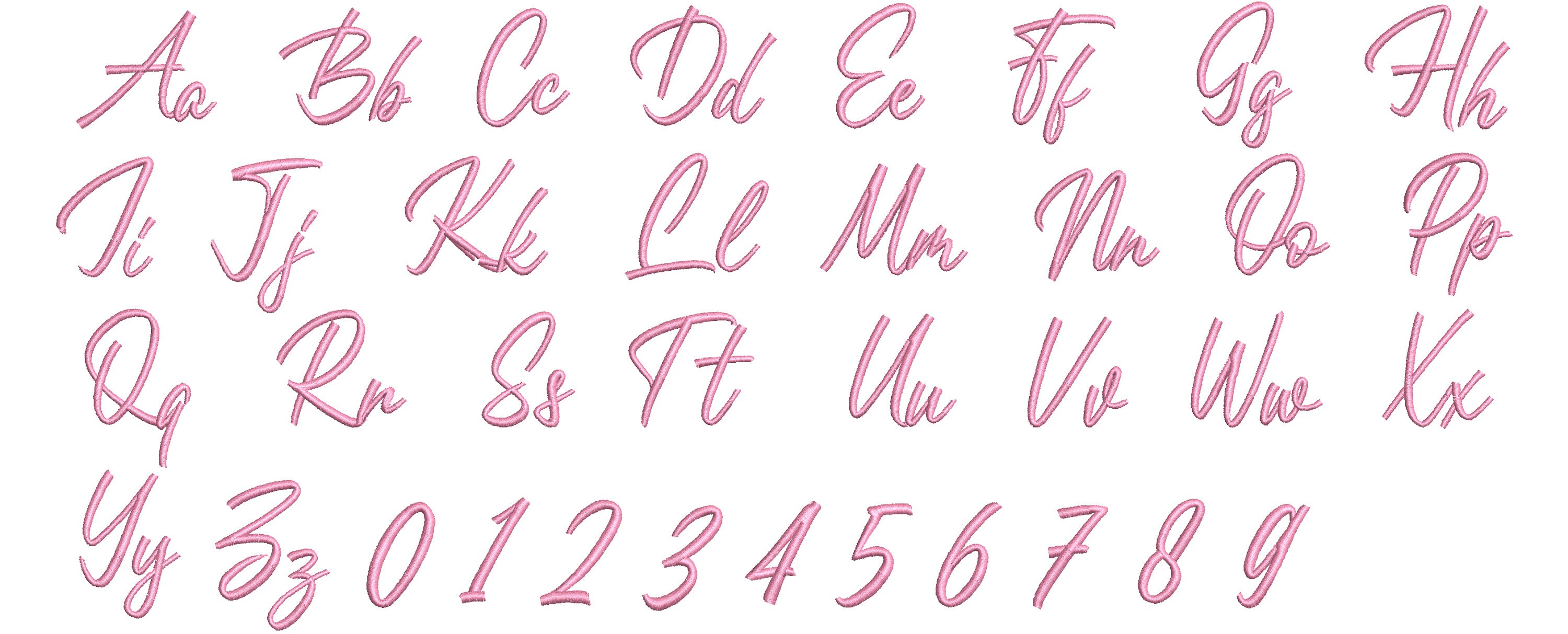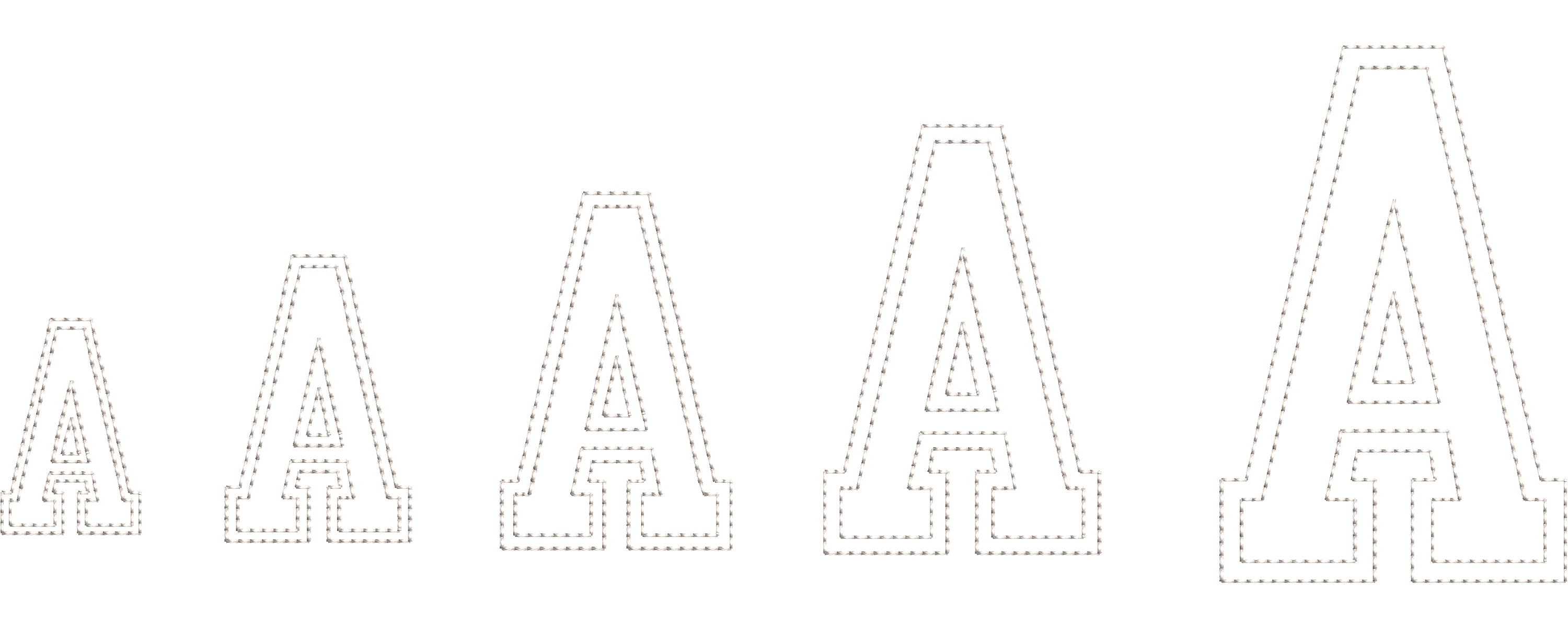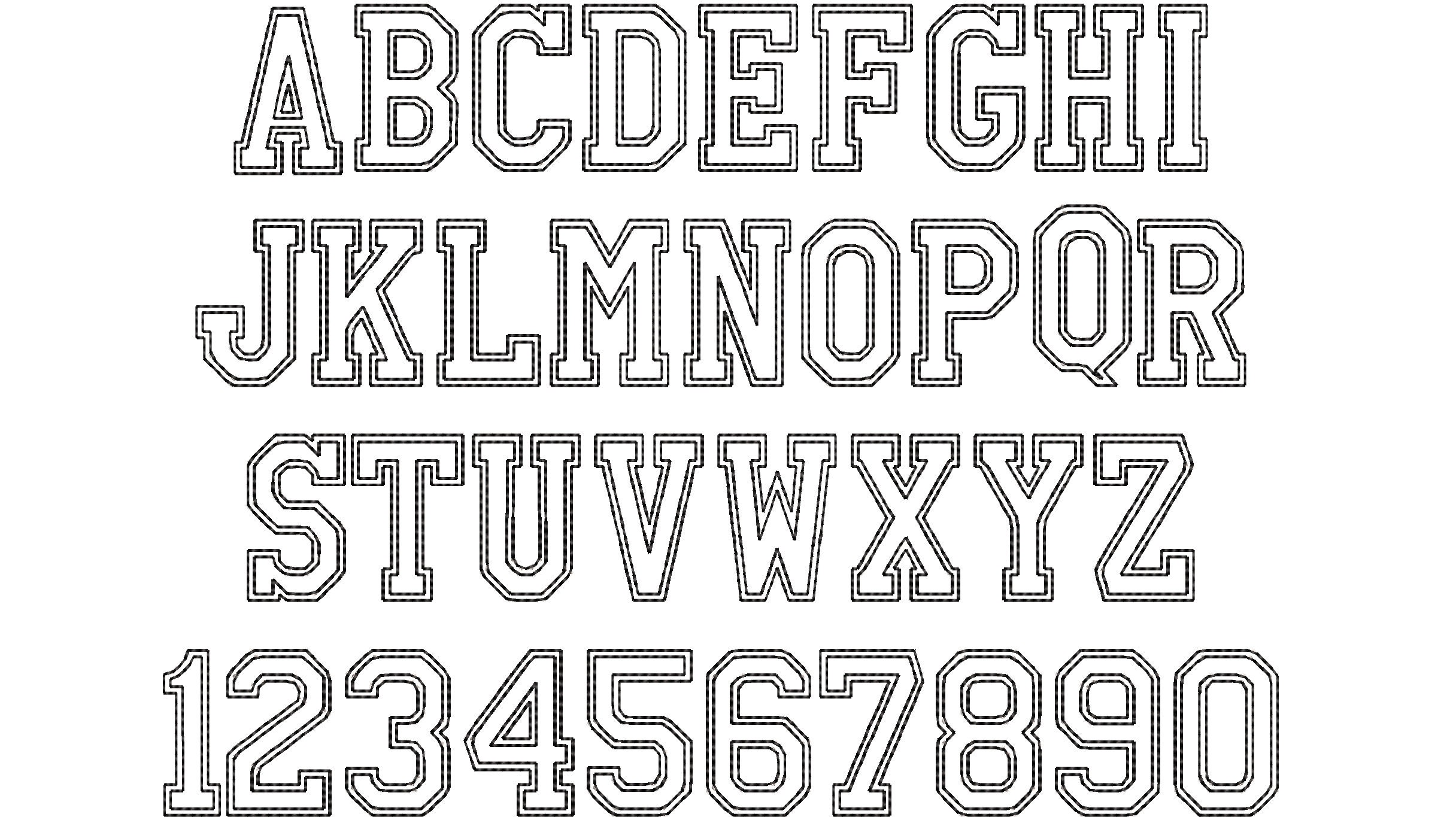
Wedding bride gifts alphabet set two types free edge Applique and script Embroidery Designs double outline free Edge Block Athletic
This is really cute set of two fonts, block double layer applique and script. You may make bridal complect or mama shirt.
Applique embroidery design with tow bean stitch outlines and with no edge stitch, that makes great raggedy style design. Or may be used with the glitter vinyl.
On example the applique steps are skipped, used only outlines